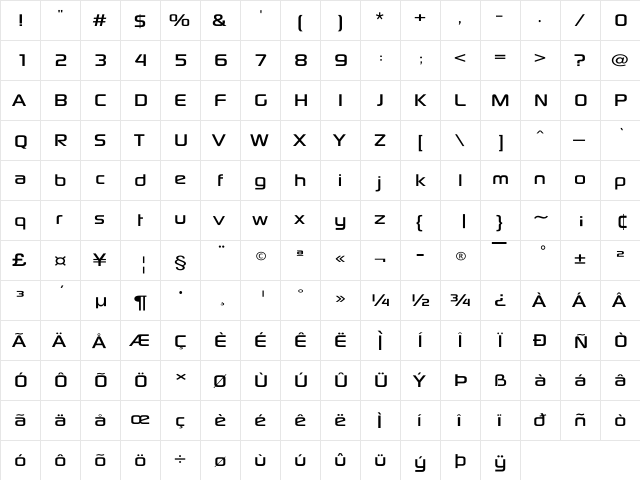
Sony Sketch EF Regular
| Designer | diezil |
Design Context for Sony Sketch EF Typeface
Sony Sketch EF offers clean, dependable letterforms without strong stylistic allegiance, making it a practical choice for designers who need flexibility.